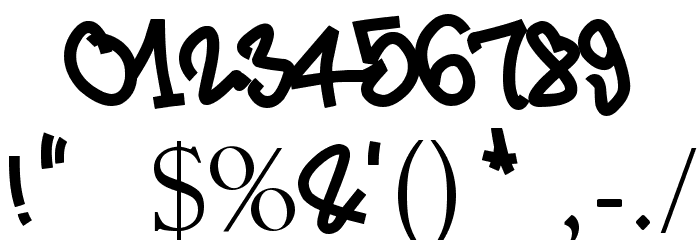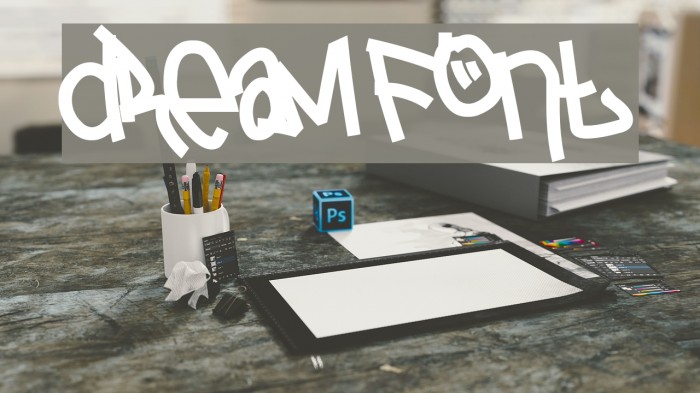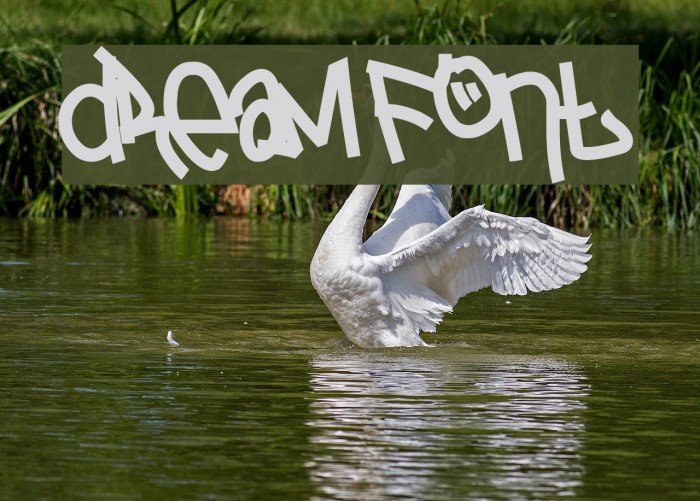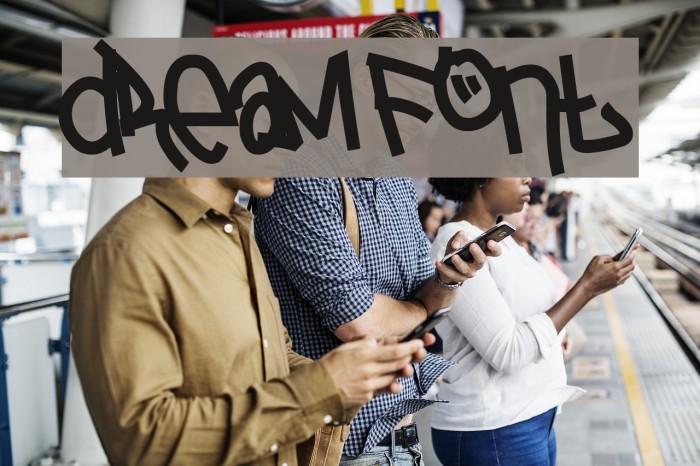
dream Font
This font exudes a bold, graffiti-inspired style with a dynamic and energetic appearance. The characters are characterized by thick strokes and a playful, informal design. Each letter has a unique flair, with exaggerated curves and angles that give it a street art vibe. The uppercase and lowercase letters maintain a consistent style, while the numbers and special characters follow the same expressive theme. This font stands out with its artistic and rebellious nature, making it perfect for projects that require a strong visual impact.
A bold, graffiti-inspired font with dynamic and energetic characters.
- Font: dream
- Proposed Projects: Ideal for street art designs, urban-themed posters, music album covers, and edgy branding projects.
- Character Spacing: Tight
- Overall Style: Modern, Urban, Artistic